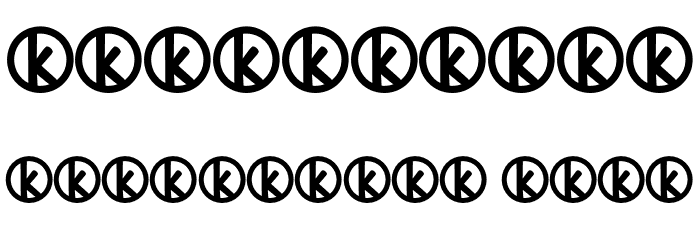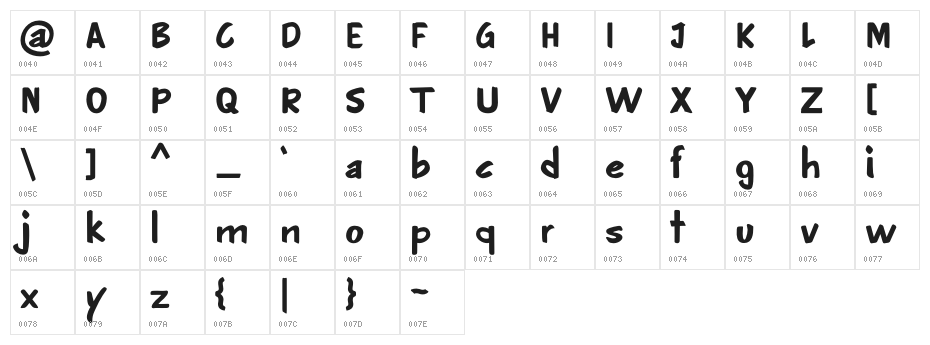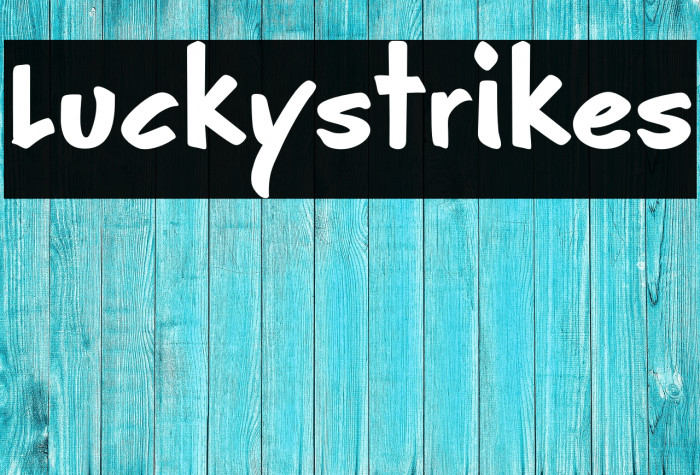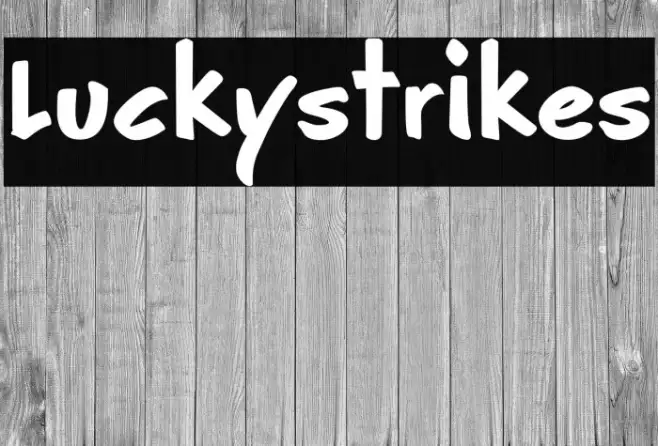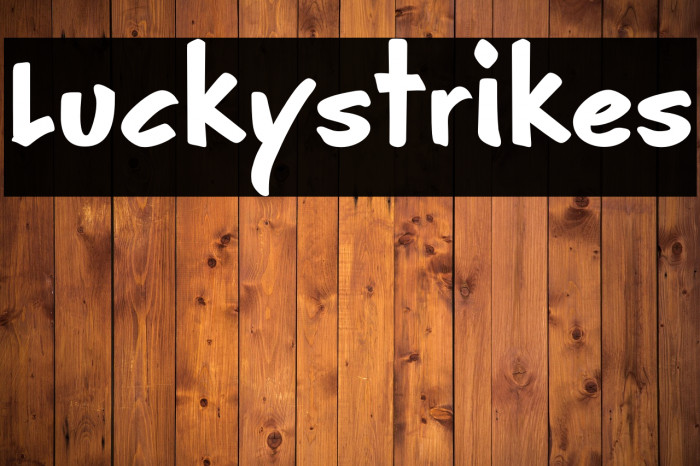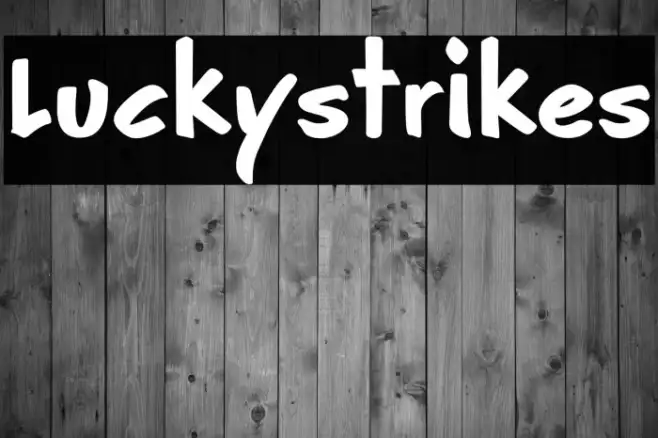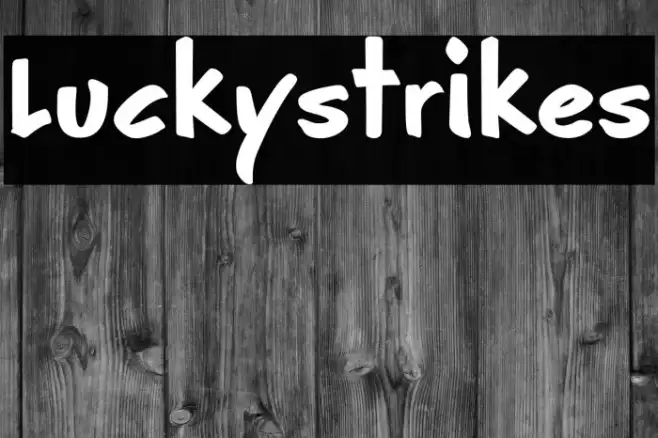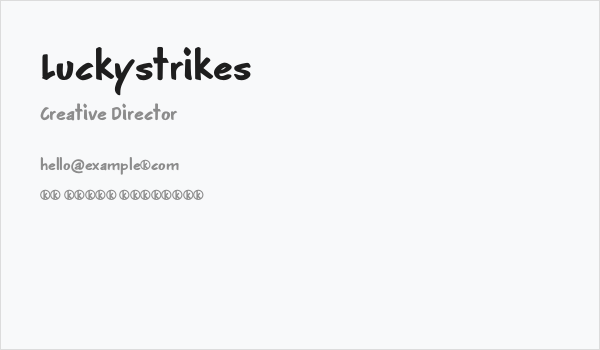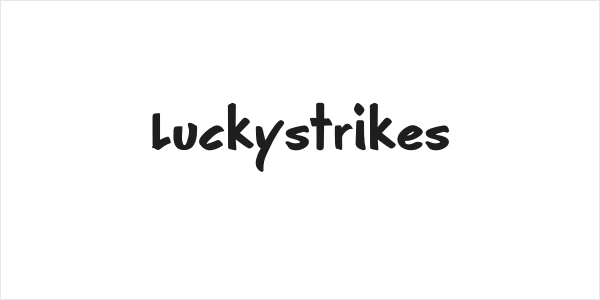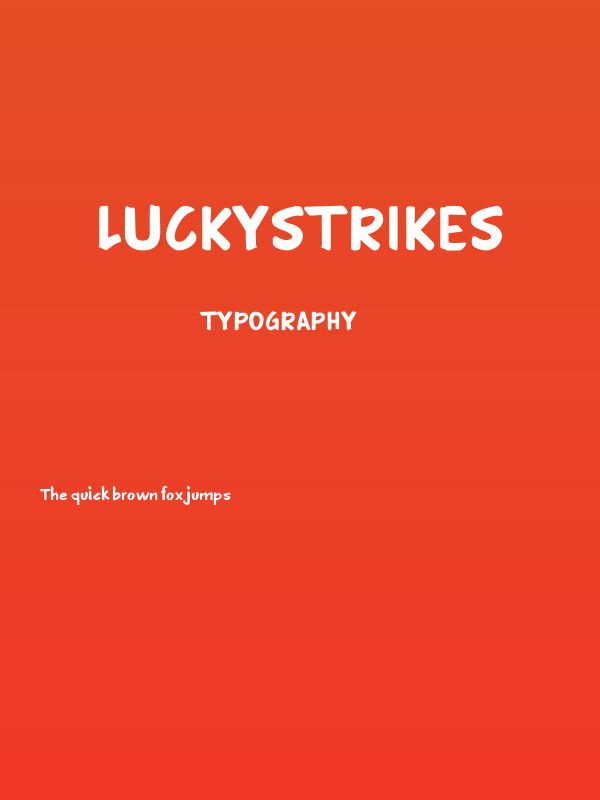
Luckystrikes Font
Luckystrikes Description
This font features a playful and bold style with rounded edges and a slightly irregular form, giving it a hand-drawn appearance. The uppercase letters are robust and prominent, while the lowercase letters maintain a consistent flow with a casual feel. The numbers and special characters follow the same playful theme, making them suitable for creative and informal designs. The overall look is friendly and approachable, ideal for projects that require a touch of whimsy and personality.
Overall StylePlayful
Proposed ProjectsIdeal for children's books, playful branding, greeting cards, and casual posters.